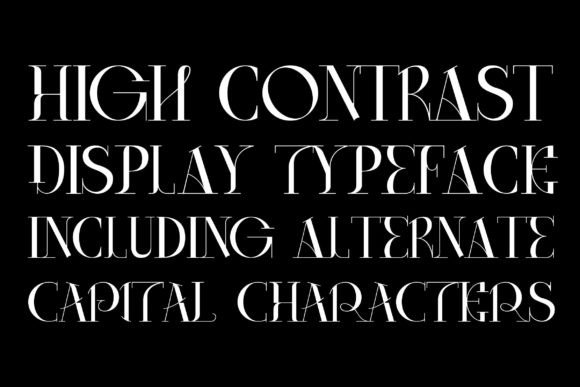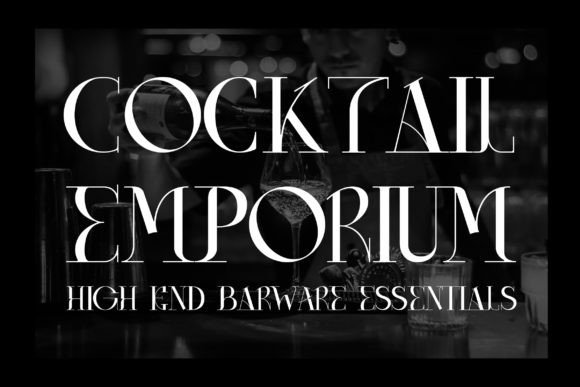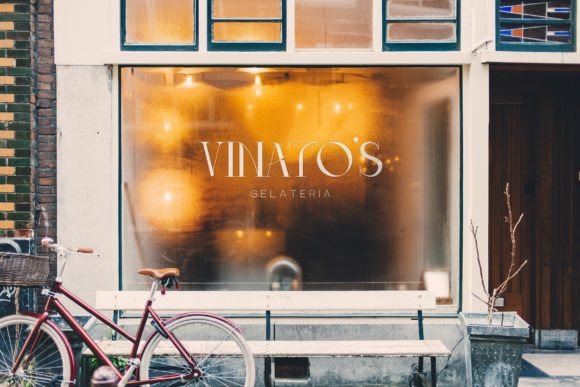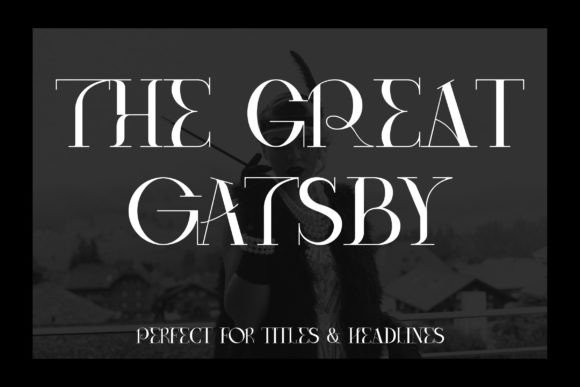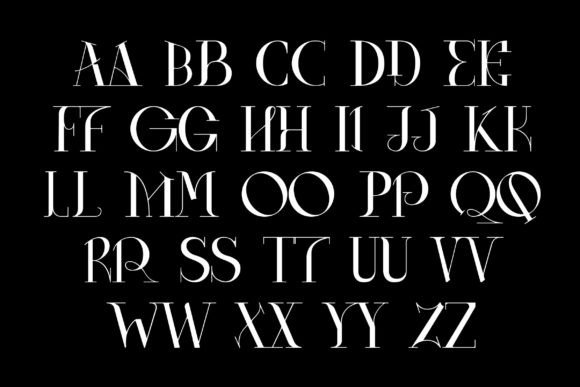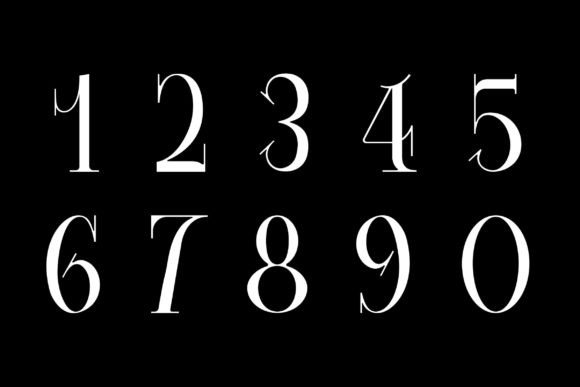
Introduction to Onyxia Font
Onyxia is a unique, highly contrasted display font that’s perfect for creating logos & c.
Its characters overlap at times for a cohesive look Best for use is large format for things like editorial designs, book covers, logos & posters.